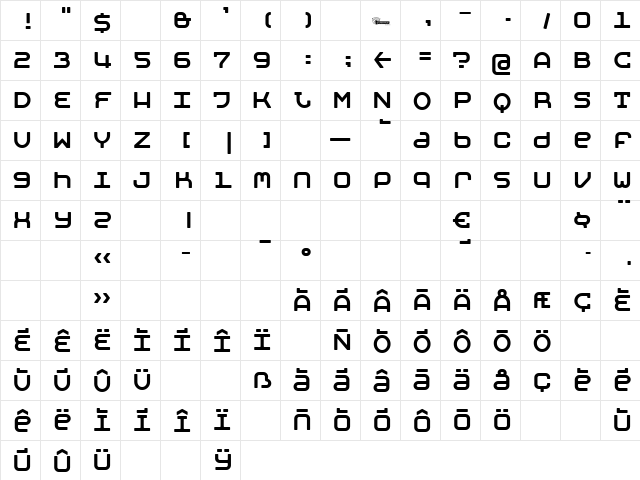
MobyMonospace Regular
Design Context for MobyMonospace Typeface
MobyMonospace brings the precise, column-aligned rhythm of monospaced typography to designs that value technical clarity and systematic order.
Pro Tip: Use MobyMonospace with slightly increased line-height for extended reading — fixed-width spacing can feel dense in longer passages without extra breathing room.